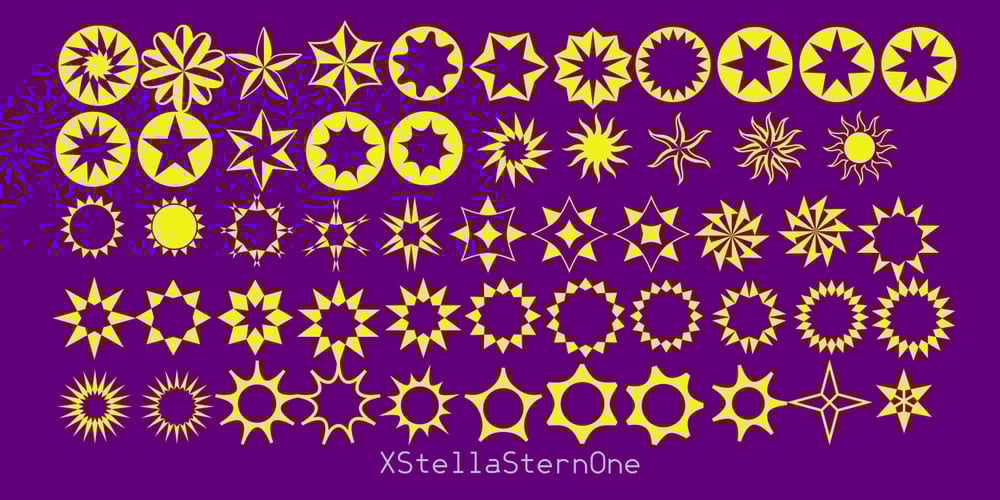
XStella Stern Font Family was designed by Robert Schenk and published by Ingrimayne Type. XStella Stern contains 5 styles and family package options. The XStellaStern group consists of five fonts of stars, star-like pictures, and derivatives of them.